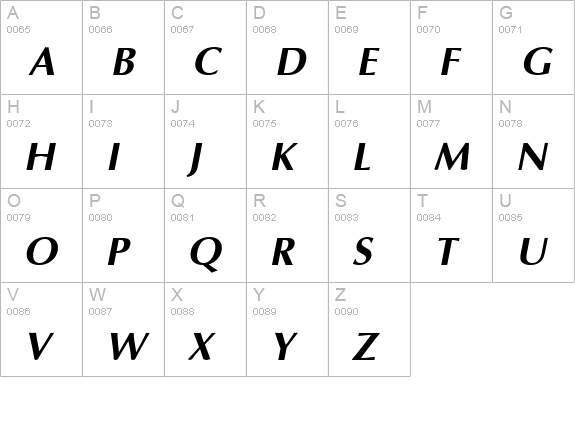
AGOpus Bold Oblique Font Details
AGOpus Bold Oblique is a strong, high-contrast, italic variant in the AGOpus typeface family \xE2\x80\x94 well suited to headlines, attention-grabbing titles, and strong calls-to-action.
AGOpus Bold Oblique is a striking and modern font that exudes confidence and sophistication. Its bold and slanted design adds a dynamic touch to any project, making it perfect for headlines, logos, and branding materials. The sleek curves and sharp angles of this font create a sense of energy and movement, drawing the eye in and making a powerful statement. This font is not only visually appealing but also highly versatile, lending itself well to a wide range of design applications. Whether you're working on a website, poster, packaging, or any other creative project, AGOpus Bold Oblique will help you make a bold and memorable impression. Best of all, AGOpus Bold Oblique is available for free download at FontsMarket.com. So you can easily add this stylish and impactful font to your collection without any cost. Don't miss out on the opportunity to enhance your designs with the bold elegance of AGOpus Bold Oblique.